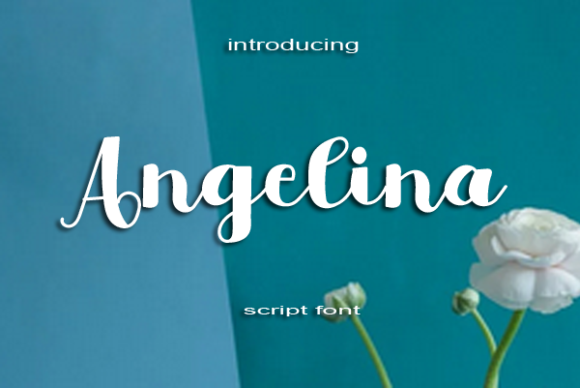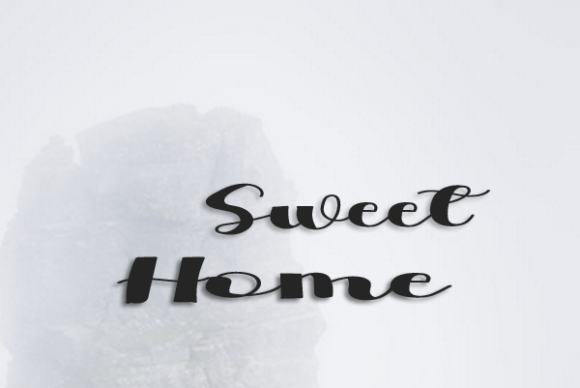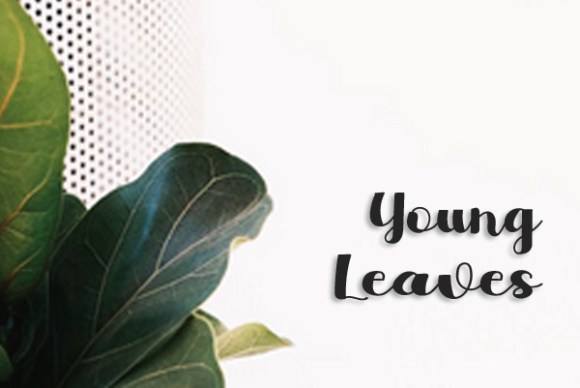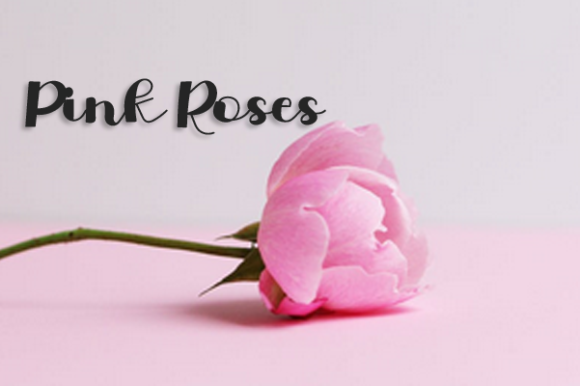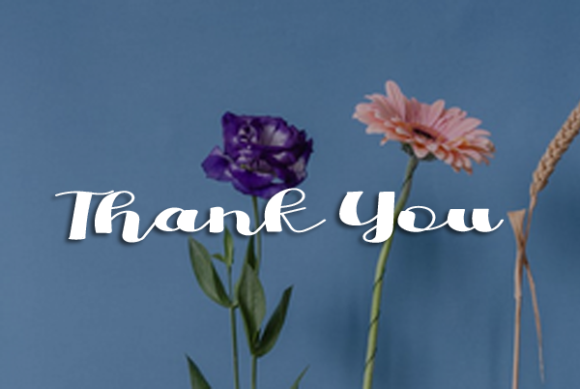
Introducing Angelina Font: Elevate Your Designs with Luxurious Calligraphy
Are you looking for a typeface that exudes elegance and sophistication? Look no further than Angelina Font, a stunning calligraphy script that is sure to add a touch of luxury to any design project. With its flowing characters that dance along the baseline, Angelina Font is the perfect choice for designers and crafters seeking to create high-end visuals that captivate and inspire.
The Beauty of Angelina Font
Angelina Font is a distinct and flowing calligraphy typeface that boasts a unique, hand-crafted aesthetic. Its characters are carefully designed to flow along the baseline, creating a sense of movement and fluidity that is both visually striking and engaging. The font’s elegant lines, curves, and swashes come together to create a truly regal appearance that is sure to elevate any design project.
Perfect for Luxury Designs
Whether you’re working on a branding project, packaging design, or marketing materials, Angelina Font is the perfect choice for adding a touch of luxury and sophistication. Its high-end aesthetic makes it ideal for:
- Logos and branding: Create a lasting impression with a custom logo that showcases your brand’s personality and style.
- Wedding and event invitations: Add a touch of elegance and romance to your wedding or event invitations.
- Packaging design: Elevate your product packaging with a luxurious and eye-catching design.
- Marketing materials: Create stunning marketing materials that showcase your brand’s commitment to quality and style.
Why Choose Angelina Font?
So, why choose Angelina Font for your next design project? Here are just a few reasons:
- Unique and distinctive: Angelina Font offers a unique and distinctive aesthetic that sets it apart from other typefaces.
- Elegant and sophisticated: Its elegant lines, curves, and swashes create a sophisticated and luxurious appearance.
- High-end aesthetic: Angelina Font is perfect for designers and crafters seeking to create high-end visuals that showcase their brand’s commitment to quality and style.
- Easy to use: Angelina Font is easy to use and can be incorporated into a variety of design projects.
Tips for Using Angelina Font
To get the most out of Angelina Font, here are a few tips to keep in mind:
- Use it sparingly: Angelina Font is a statement piece, so use it sparingly to avoid overwhelming your design.
- Pair it with a neutral font: Pair Angelina Font with a neutral font to create visual interest and balance.
- Experiment with colors: Experiment with different colors and textures to add depth and dimension to your design.
- Play with swashes: Angelina Font comes with a range of swashes and flourishes – experiment with these to add a touch of personality to your design.
In conclusion, Angelina Font is a stunning calligraphy typeface that is sure to add a touch of luxury and sophistication to any design project. Its unique and distinctive aesthetic, elegant lines, and high-end appearance make it the perfect choice for designers and crafters seeking to create high-end visuals that captivate and inspire. So why not give Angelina Font a try and see how it can elevate your designs?
Get Creative with Angelina Font
Ready to get creative with Angelina Font? Here are some ideas to get you started:
- Create a stunning logo or branding design that showcases your brand’s personality and style.
- Design a beautiful wedding or event invitation that sets the tone for a special day.
- Develop a luxurious packaging design that elevates your product and brand.
- Create eye-catching marketing materials that showcase your brand’s commitment to quality and style.